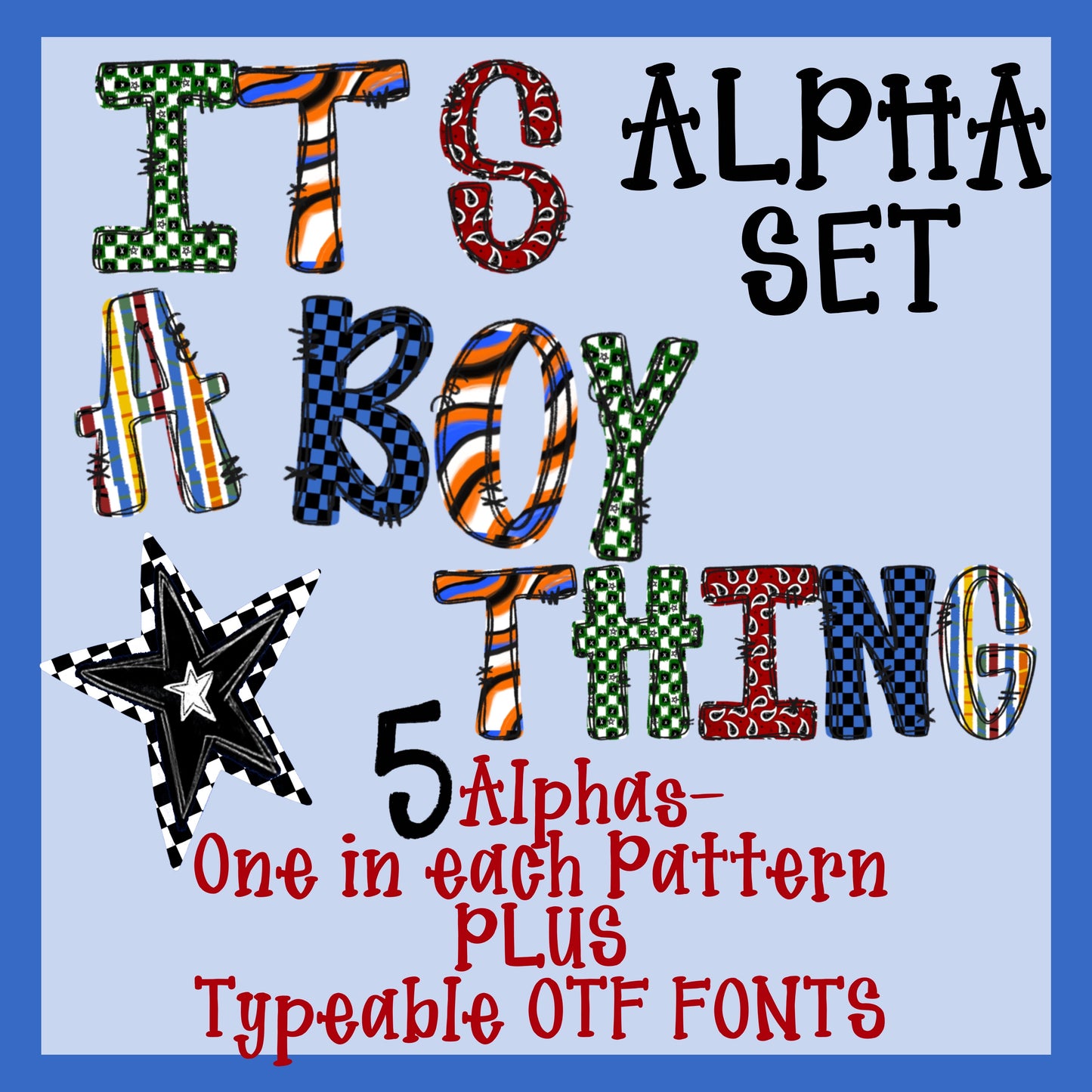
It’s a Boy Thing ALPHA Set with Typeable OTF Fonts **BONUS 6th alpha design included!
This is a super cute hand-drawn alpha set that comes with SIX alphas! (5 are shown and a BONUS one is thrown in for free!) These alphas can be used for commercial use in selling physical items and digital designs.